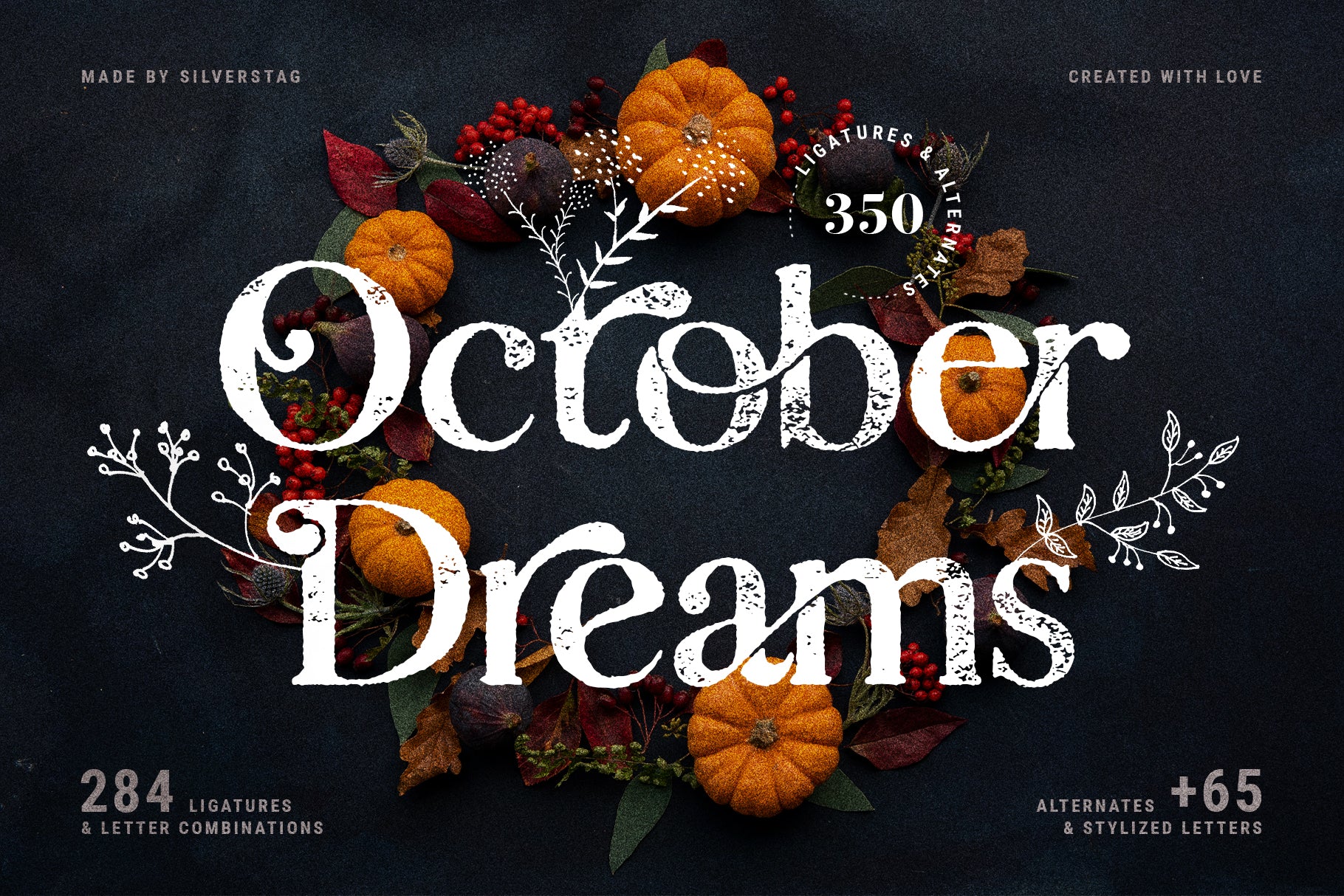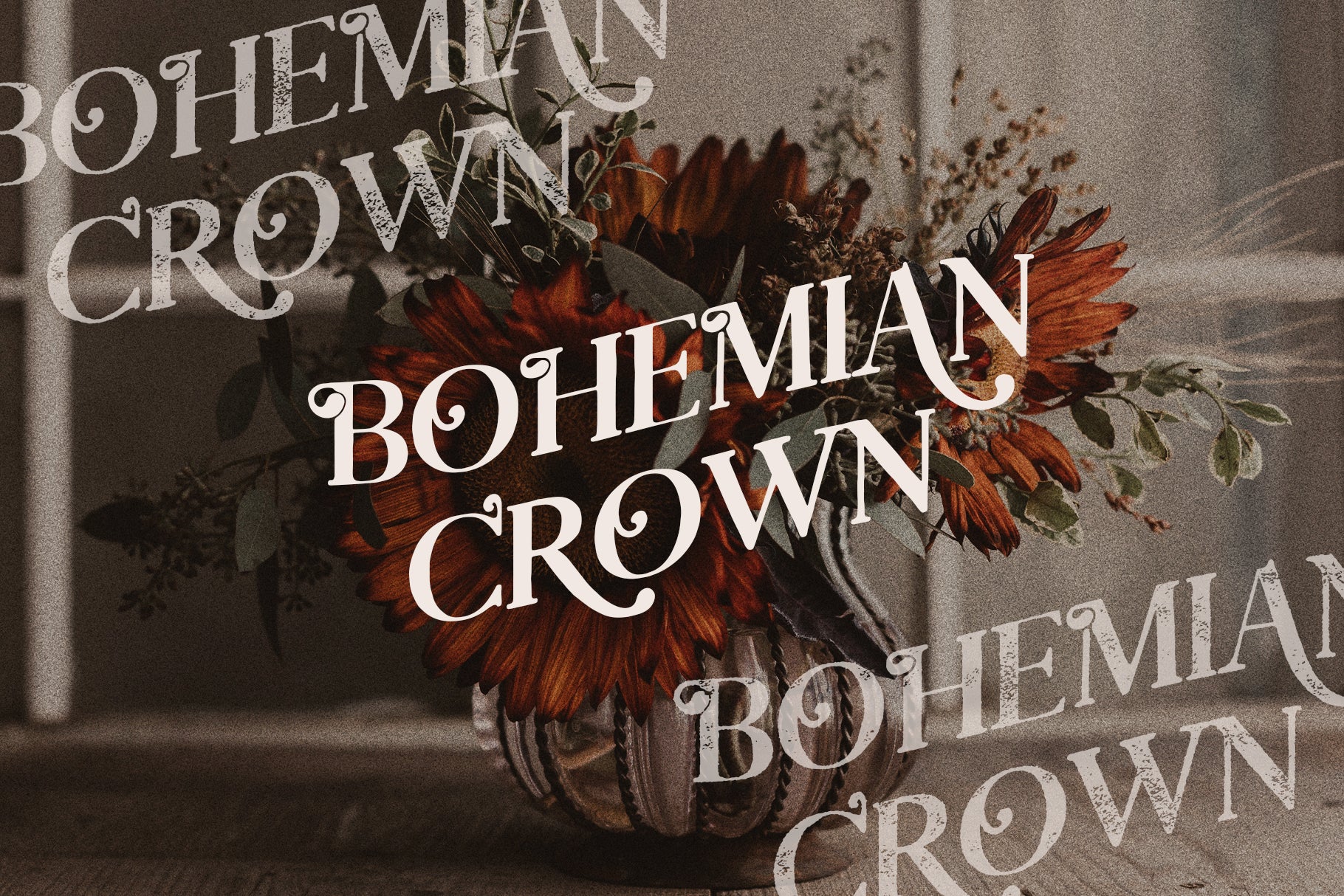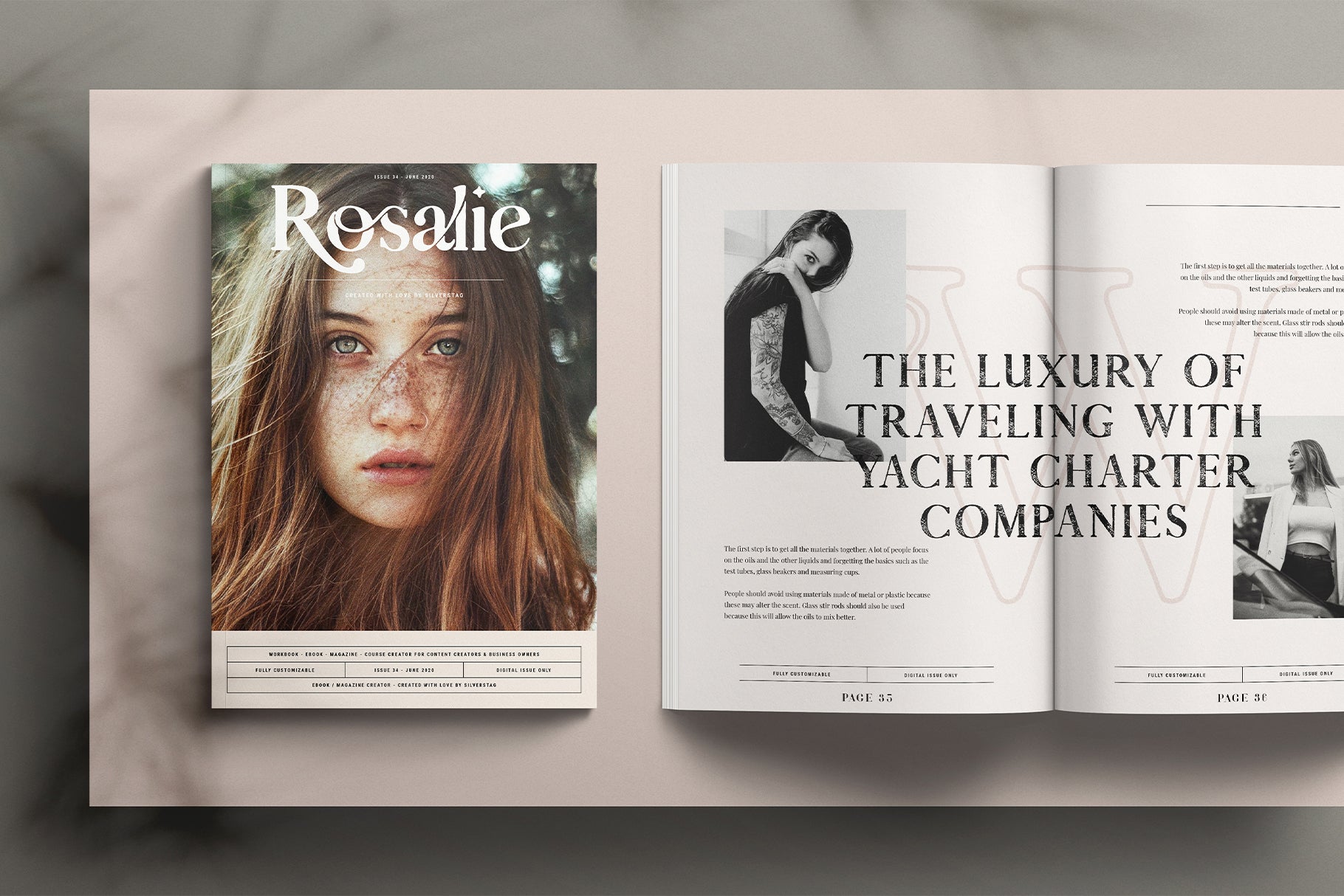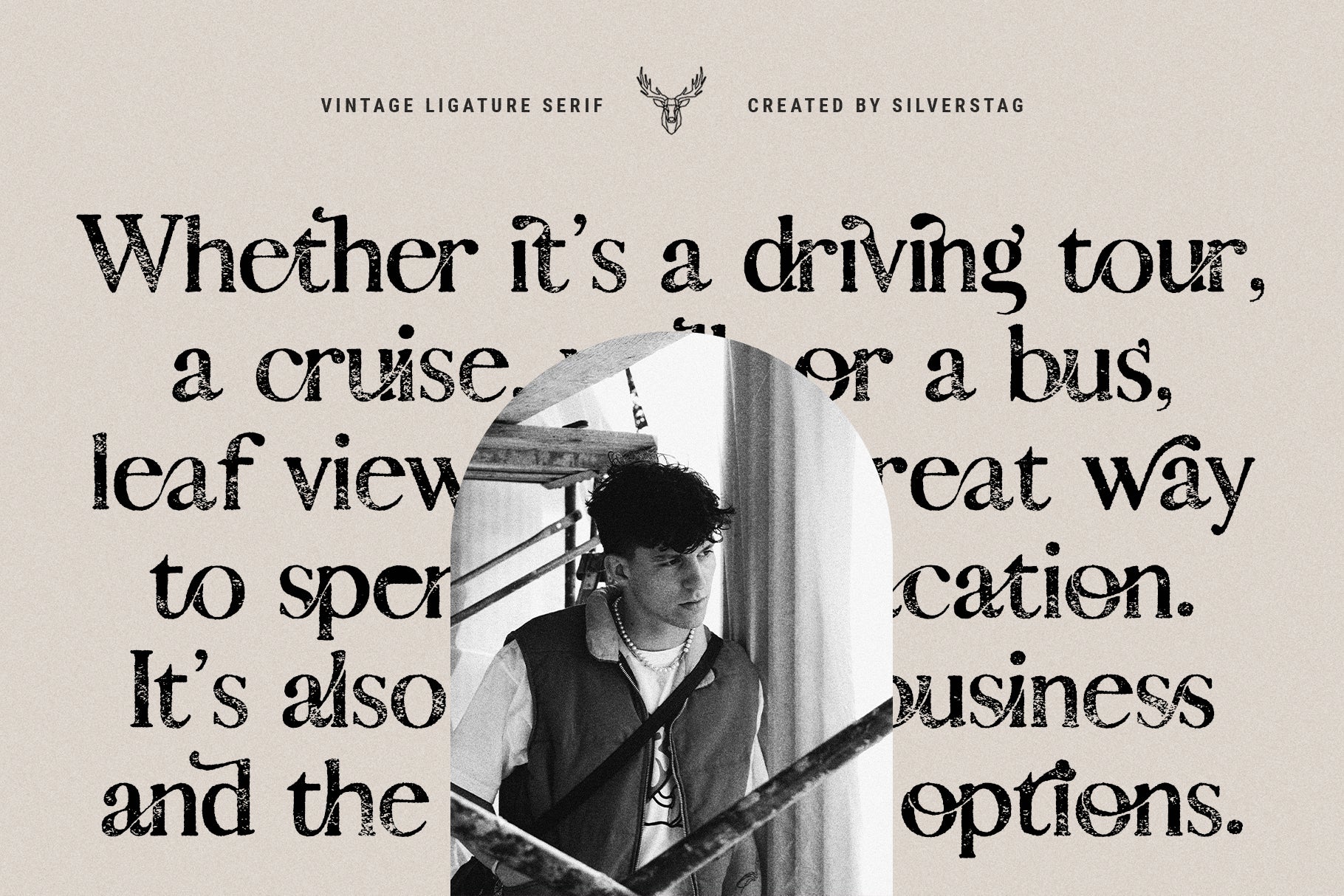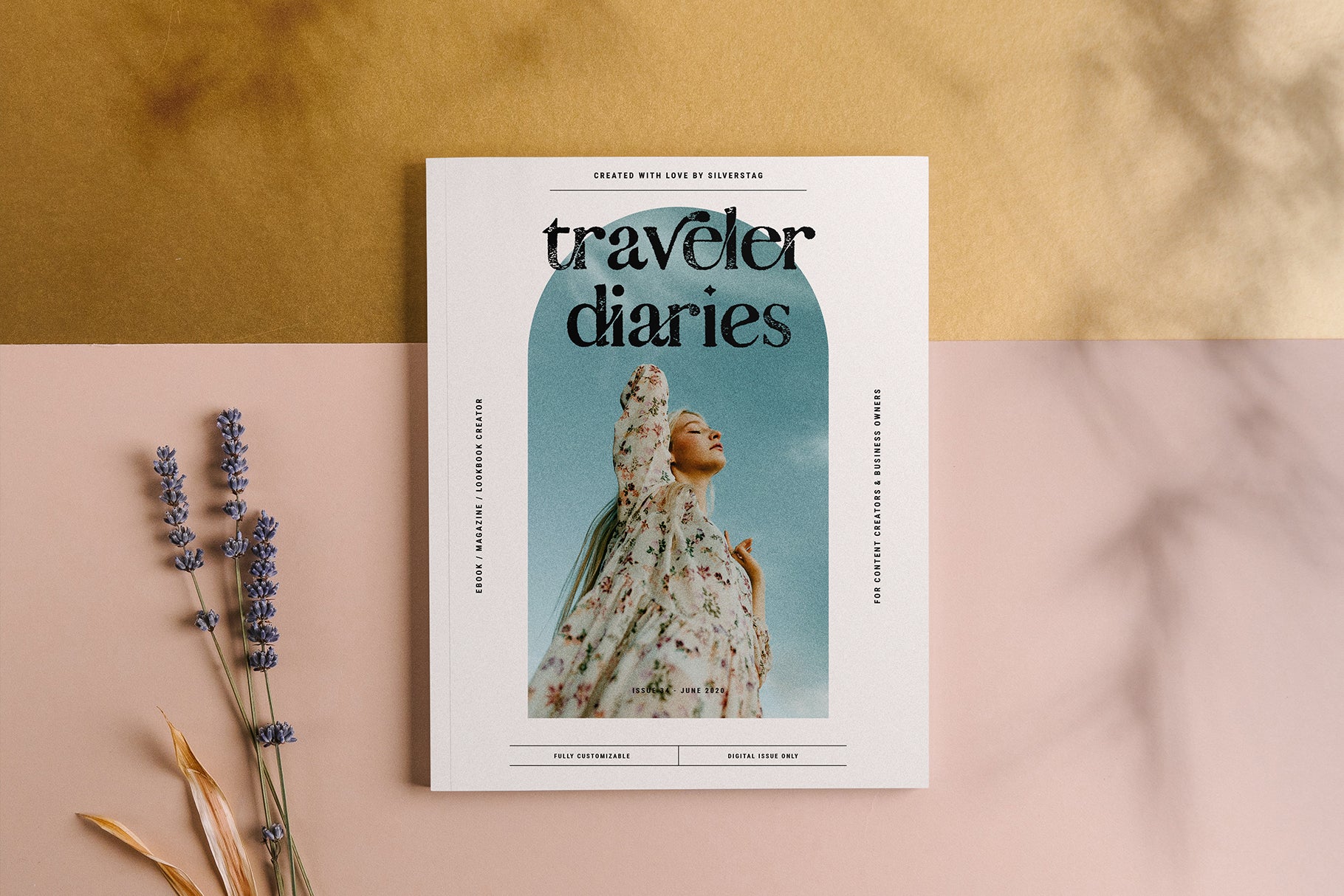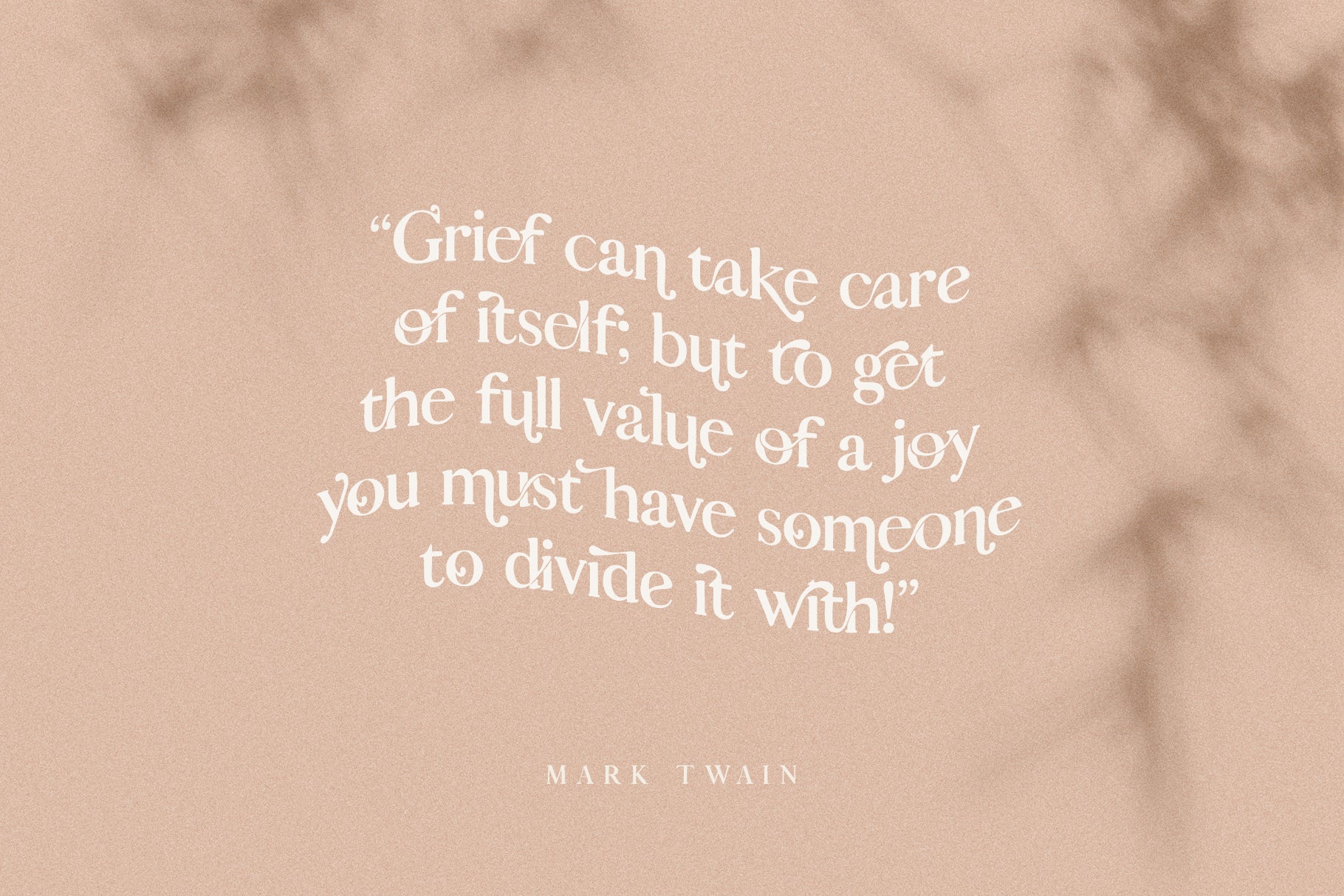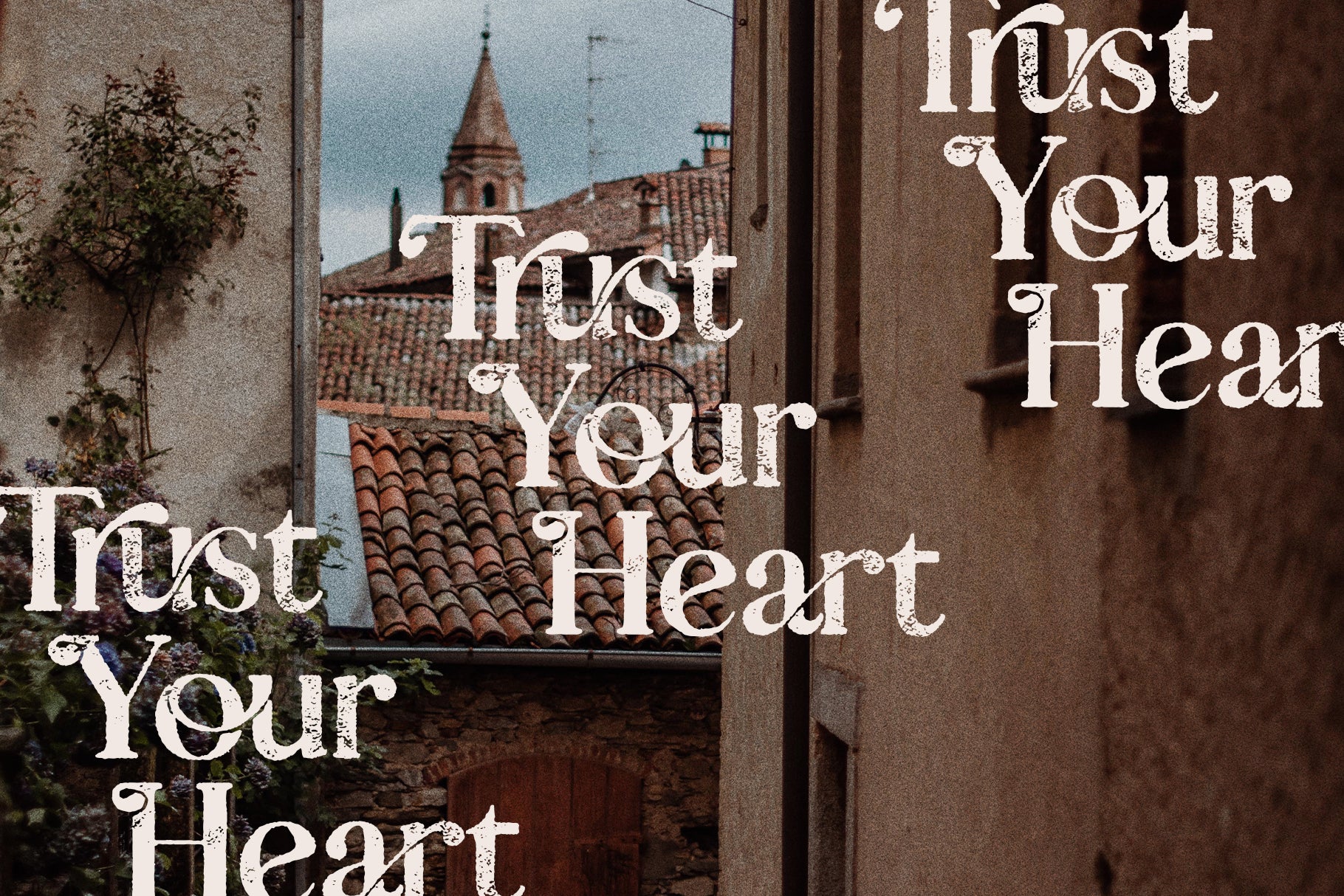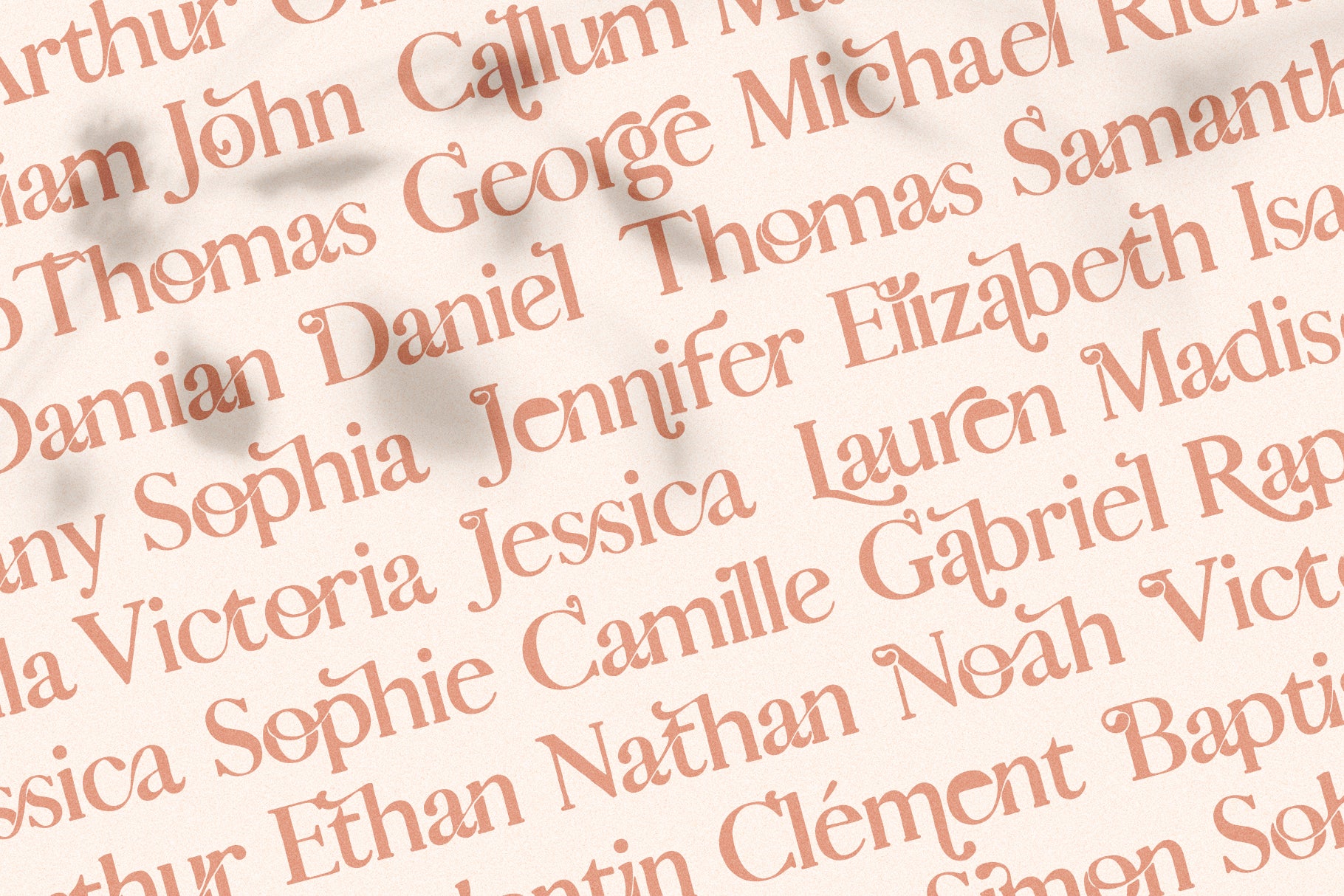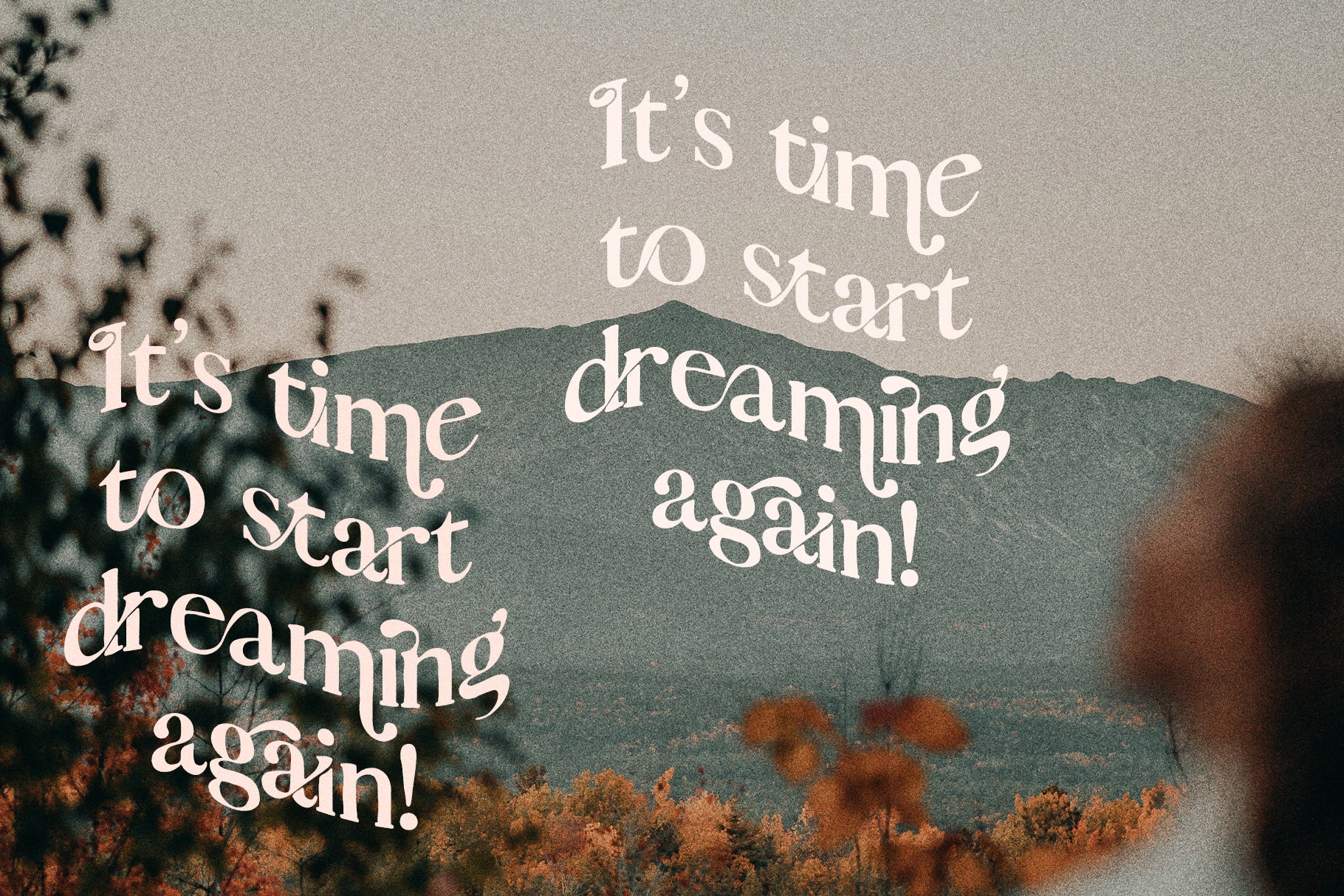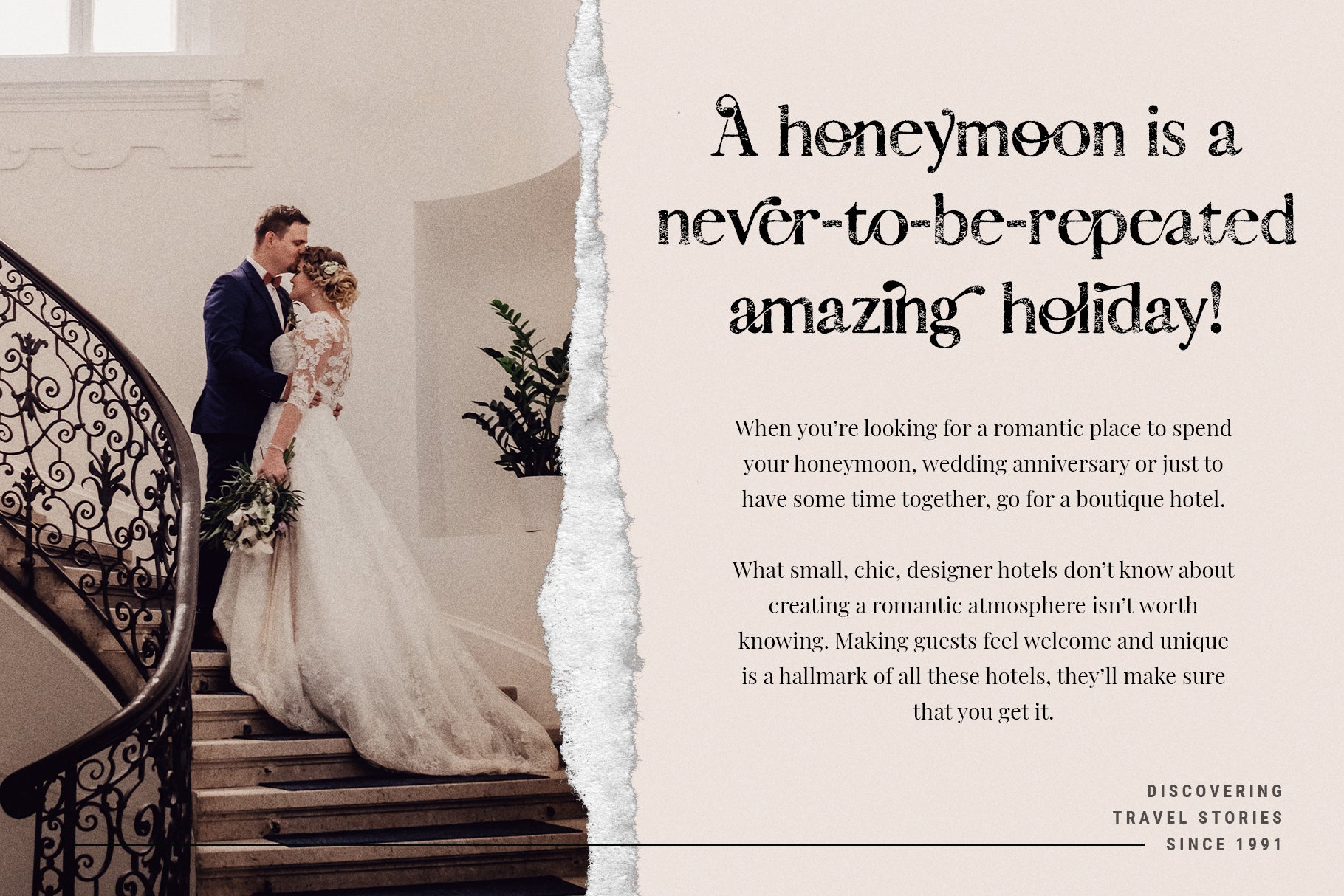
October Dreams - Hand-Drawn Serif
Meet October Dreams, a hand-drawn serif font designed to bring warmth, personality, and a touch of whimsy to your creative projects. This typeface is a complete reimagining of the classic serif style—every one of its 623 glyphs is 100% unique, hand-drawn, and crafted with detail and care.
With over 350 ligatures and alternates, October Dreams offers an extraordinary range of typographic expression, allowing you to create elegant headlines, whimsical wedding invitations, nostalgic packaging, or playful social media posts. The font family includes three versions—Regular, Vintage, and Outline—giving you flexibility for both print and digital work.
October Dreams supports all Latin-based languages and includes full punctuation, numerals, accented characters, and a Web Font Kit. Whether you’re creating brand identities, dreamy stationery, or nostalgic editorial spreads, this font brings originality and emotion to every word.
Rosalie yacht-charter magazine spread mockup in October Dreams hand-drawn serif font
Traveler diaries card mockup in October Dreams hand-drawn serif font on pink with lavender sprigs
Trust Your Heart specimen in October Dreams hand-drawn serif font over an old European street
A start-dreaming-again line in October Dreams hand-drawn serif font over autumn mountains
Forgiving specimen repeated in October Dreams hand-drawn serif font on cream with leaf shadows
Create the life of your dreams specimen in October Dreams hand-drawn serif font over a plant
Oscar Wilde dreamer and moonlight quote in October Dreams hand-drawn serif font over dark teal
Stacy Jones social media manager card mockup in October Dreams hand-drawn serif font
Adventure Awaits specimen in October Dreams hand-drawn serif font over a wooden chair on sand
From the heart for the self line in October Dreams hand-drawn serif font with a woman and a bag
Oscar Wilde freedom and moon quote in October Dreams hand-drawn serif font with a cliff photo
Bohemian Crown specimen in October Dreams hand-drawn serif font over sepia dried autumn flowers
October Dreams hand-drawn serif font leaf-viewing travel paragraph with an arched photo of a man
Mark Twain joy-and-grief quote in October Dreams hand-drawn serif font on blush with leaf shadows
October Dreams hand-drawn serif font tilted showcase of many first names in coral on cream
Honeymoon travel spread mockup in October Dreams hand-drawn serif font with a wedding couple
Vicky Baptiste name specimen in October Dreams hand-drawn serif font with a headscarf portrait
Oliver name specimen in October Dreams hand-drawn serif font over a man with an antler headpiece
A learn-to-love-by-loving line in October Dreams hand-drawn serif font on a tan ground
Virginia Woolf Orlando quote in October Dreams hand-drawn serif font on greige with inset photos
Oscar Wilde dreamer quote in October Dreams hand-drawn serif font with a small inset portrait
Bethany George name specimen in October Dreams hand-drawn serif font on greige with leaf shadows
Michelle name specimen in October Dreams hand-drawn serif font over a woman with a hair flower
Bohemian Crown specimen in October Dreams hand-drawn serif font over sepia dried autumn flowers
Rosalie yacht-charter magazine spread mockup in October Dreams hand-drawn serif font
October Dreams hand-drawn serif font leaf-viewing travel paragraph with an arched photo of a man
Traveler diaries card mockup in October Dreams hand-drawn serif font on pink with lavender sprigs
Mark Twain joy-and-grief quote in October Dreams hand-drawn serif font on blush with leaf shadows
Trust Your Heart specimen in October Dreams hand-drawn serif font over an old European street
October Dreams hand-drawn serif font tilted showcase of many first names in coral on cream
A start-dreaming-again line in October Dreams hand-drawn serif font over autumn mountains
Honeymoon travel spread mockup in October Dreams hand-drawn serif font with a wedding couple
Forgiving specimen repeated in October Dreams hand-drawn serif font on cream with leaf shadows
Vicky Baptiste name specimen in October Dreams hand-drawn serif font with a headscarf portrait
Create the life of your dreams specimen in October Dreams hand-drawn serif font over a plant
Oliver name specimen in October Dreams hand-drawn serif font over a man with an antler headpiece
Oscar Wilde dreamer and moonlight quote in October Dreams hand-drawn serif font over dark teal
A learn-to-love-by-loving line in October Dreams hand-drawn serif font on a tan ground